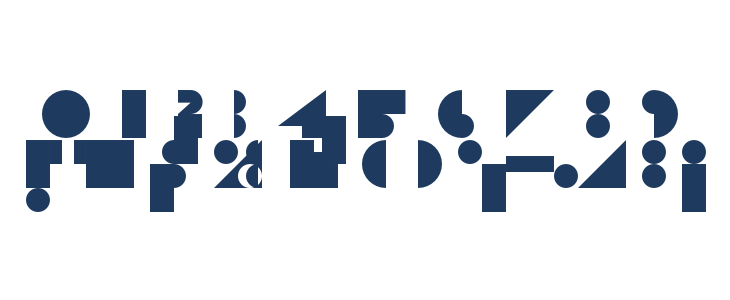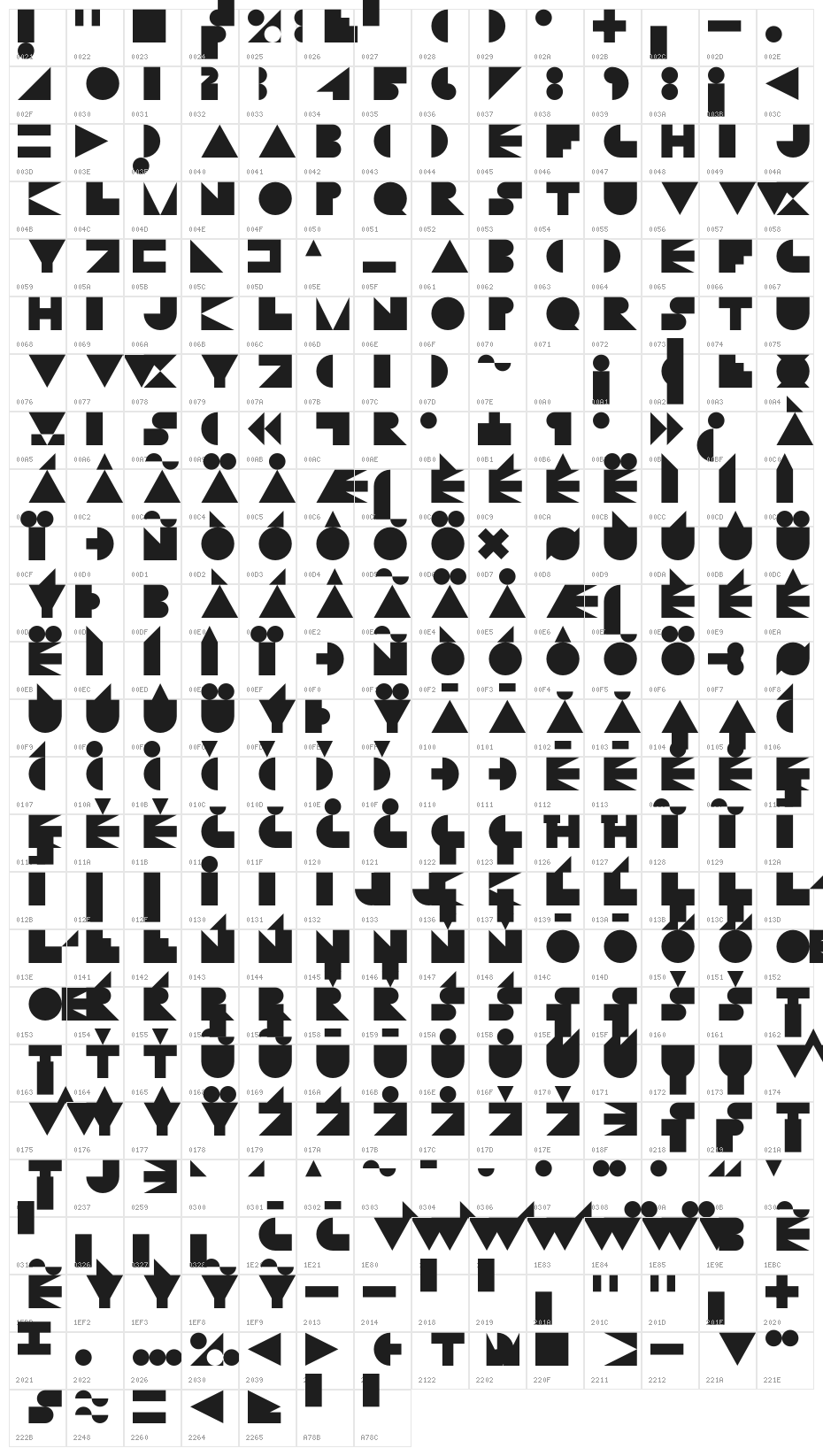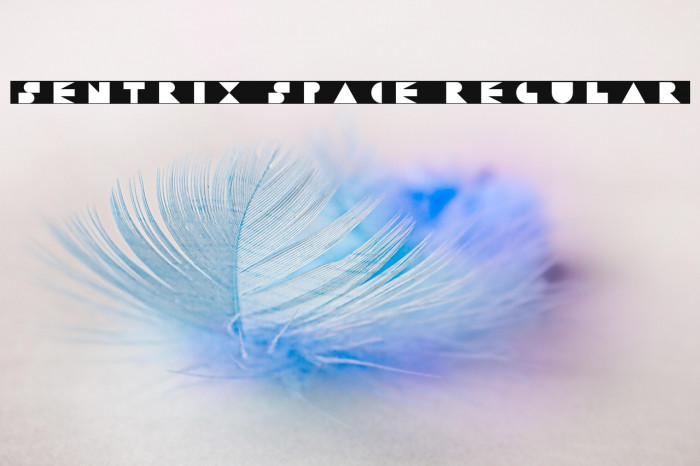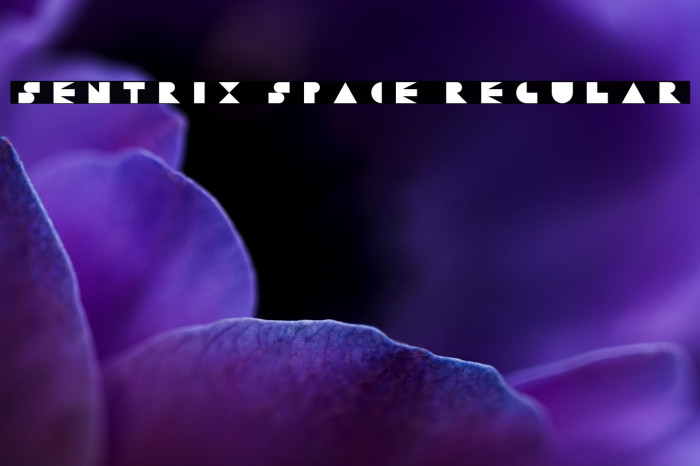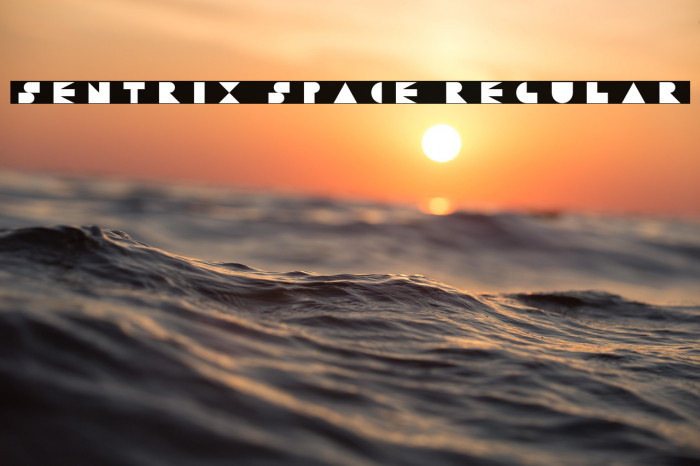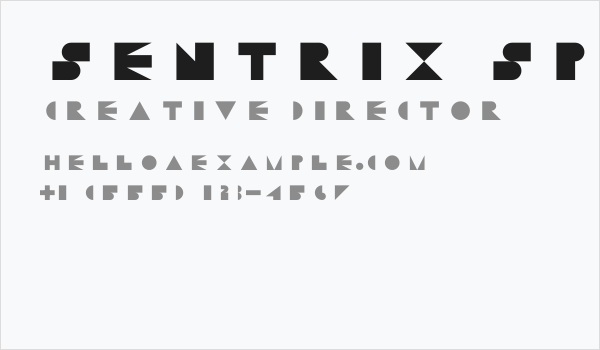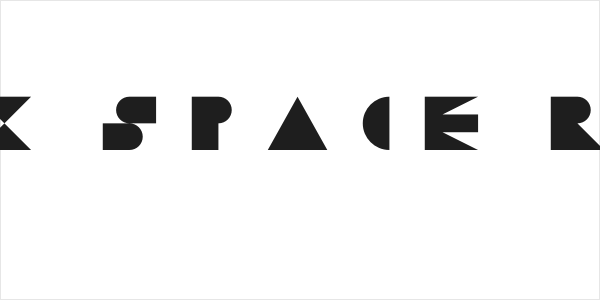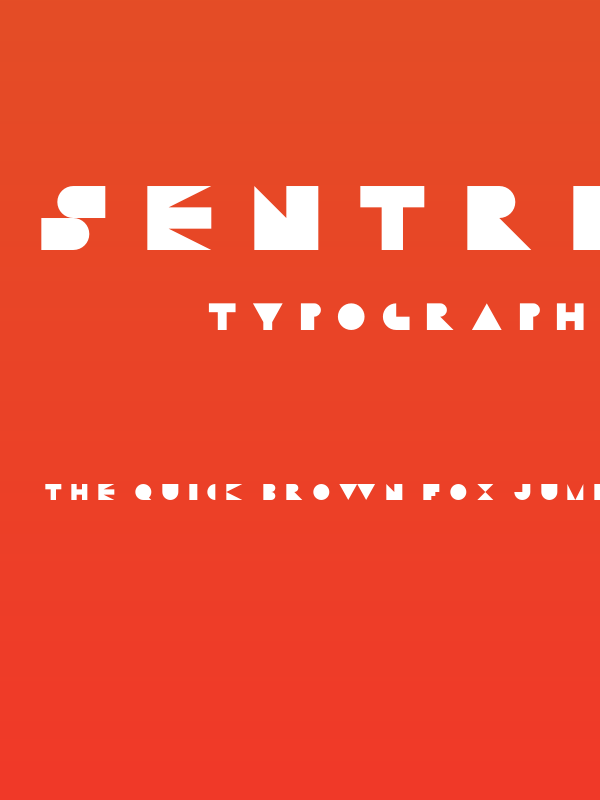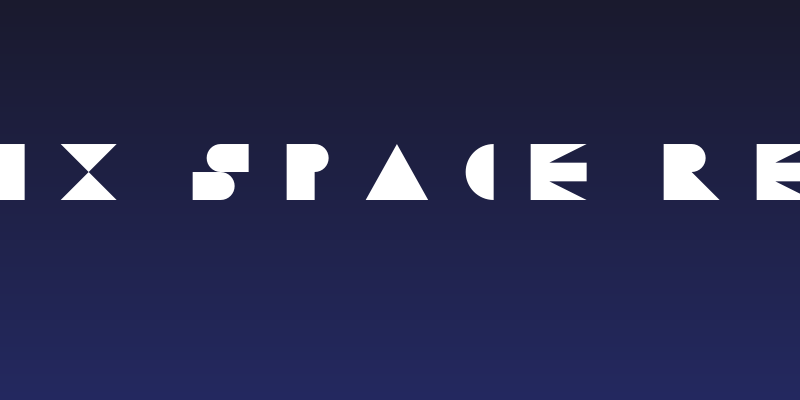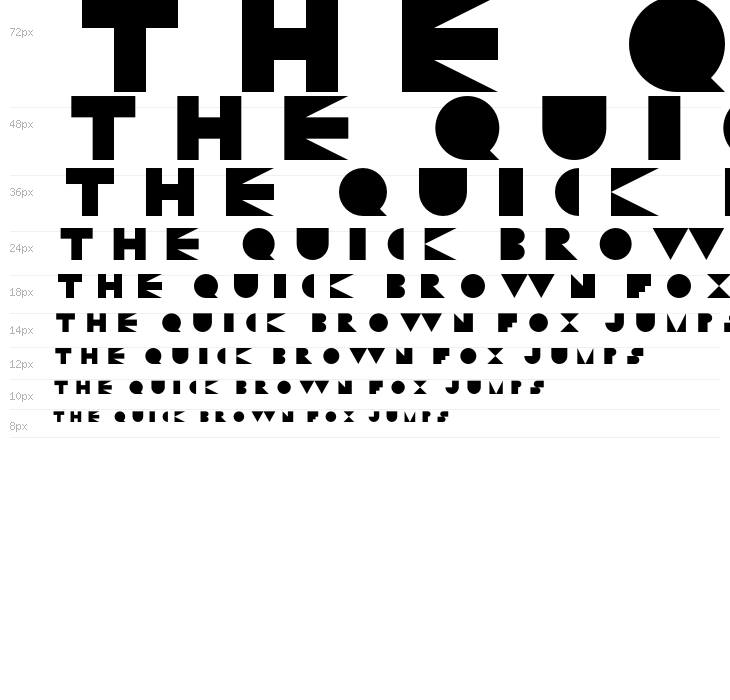
Sentrix Space Regular Font
Sentrix Space Regular Description
This font features a bold and geometric design, characterized by sharp angles and distinct shapes. Each letterform is constructed with a futuristic aesthetic, incorporating triangular and circular elements that create a sense of movement and modernity. The uppercase and lowercase letters maintain a consistent style, with unique cuts and angles that make each character stand out. Numbers and special characters follow the same design principles, ensuring a cohesive look across all glyphs. The font's striking appearance makes it ideal for projects that require a strong visual impact.